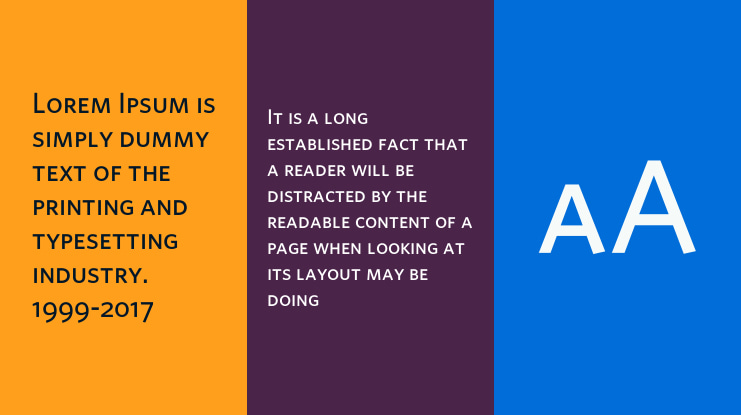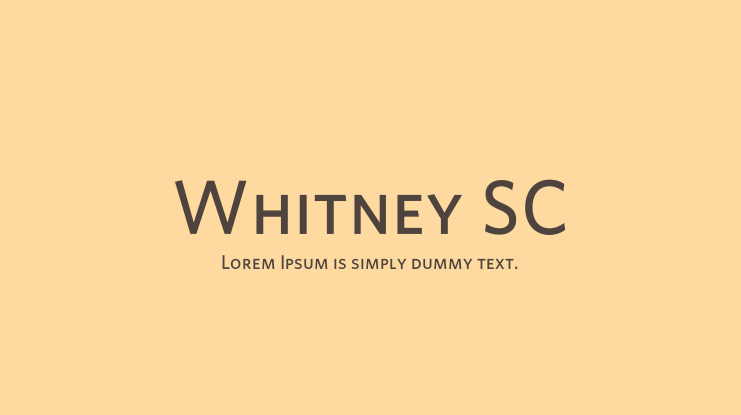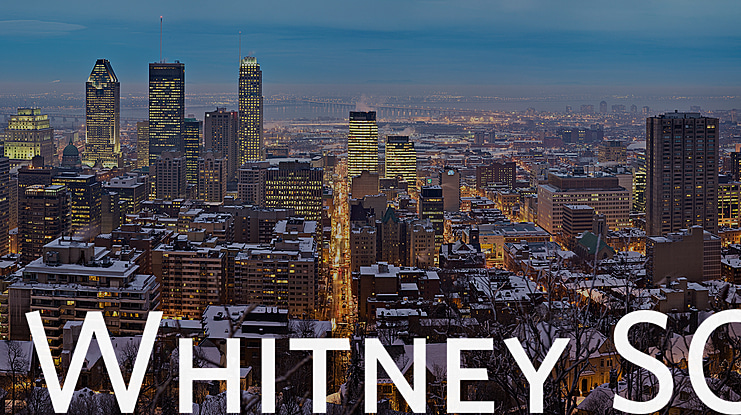
Whitney SC Font Family
The Whitney family contains six weights from Light to Black, each provided in roman, italic, and both roman and italic small caps. Whitney maintains visually consistent intervals between its weights, to ensure that every style has a heavier counterpart that provides the same degree of emphasis.
Whitney is suited to use at sizes large and small. The following tables offer some conservative guidelines for the smallest sizes at which the fonts can comfortably be reproduced and read, assuming typical reading conditions, and conventional contrast between type and background colors. The recommendations for sizes on screen are based on the coarser resolutions of older, entry-level monitors: at the higher resolutions available on modern phones, tablets, and laptops, type is viable at even smaller sizes.